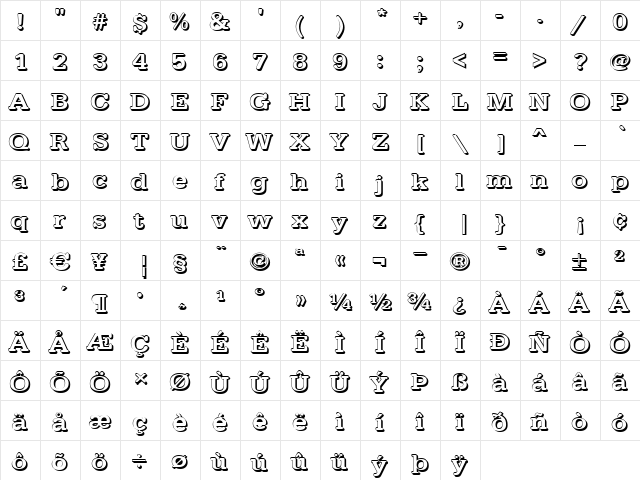
AstridBeckerShadowE-Medium Normal
Design Context for AstridBeckerShadowE-Medium Typeface
AstridBeckerShadowE-Medium brings ornamental detail and strong personality to headlines and identities, where visual impact matters more than quiet functionality.
Font Pairing: Pair with a clean neutral sans-serif for body copy to let AstridBeckerShadowE-Medium's character lead without overwhelming the composition.
Pro Tip: Treat AstridBeckerShadowE-Medium as the centrepiece of your typographic hierarchy. One strong heading set in a decorative face can carry an entire layout.